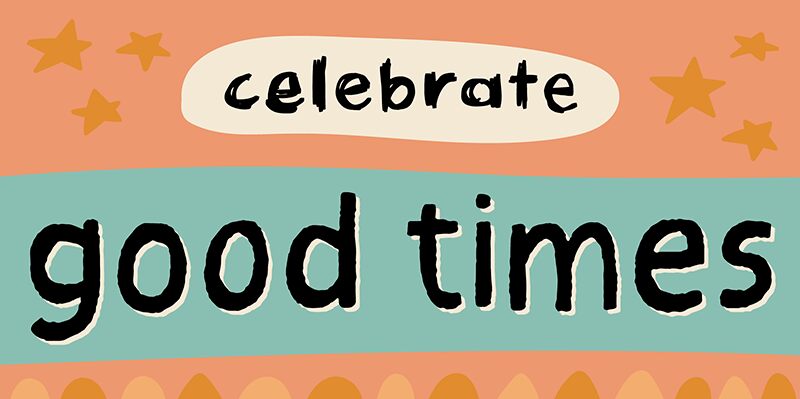
Loppemarked 2 DEMO Regular
Loppemarked 2, designed by the renowned Pizzadude, is a whimsical display font that adds a playful touch to any project.
With its semi-light weight and cartoon style, this font is perfect for children's books, greeting cards, and party invitations. Its unique design brings characters to life and creates a fun atmosphere for branding projects such as toy stores or amusement parks.
Loppemarked 2 will inject joy and creativity into your designs, making it an ideal choice for any project that demands a touch of lightheartedness.